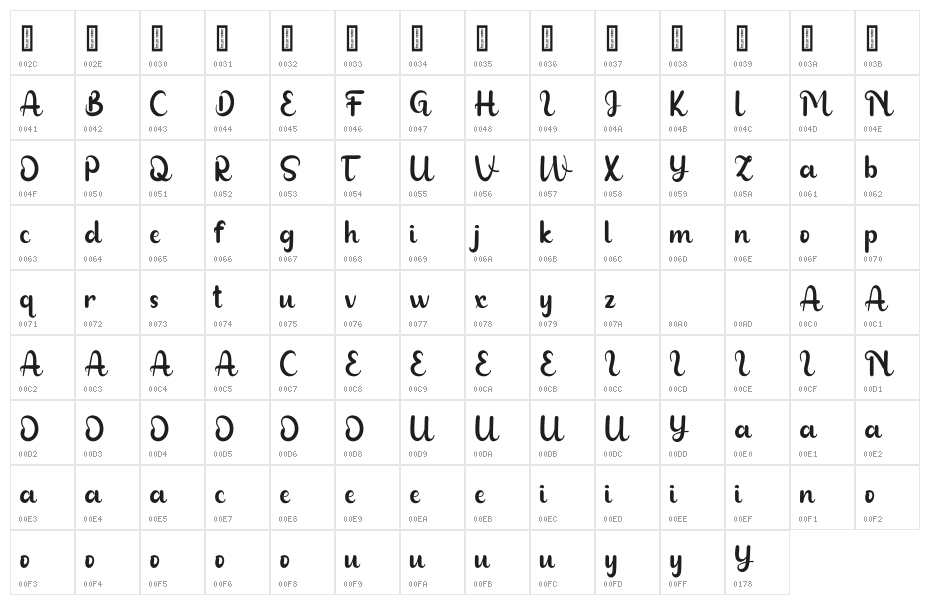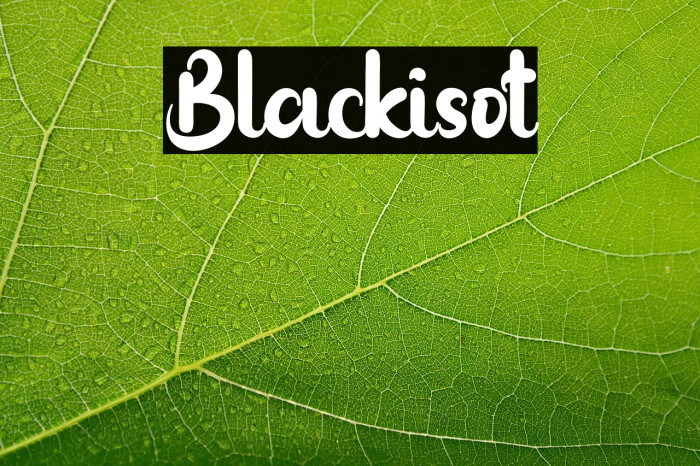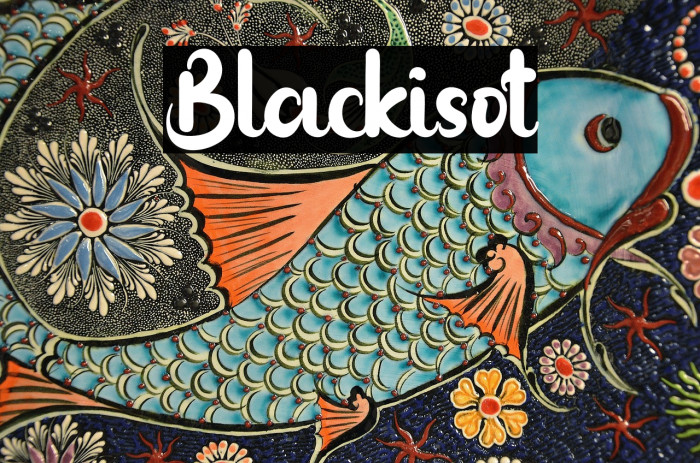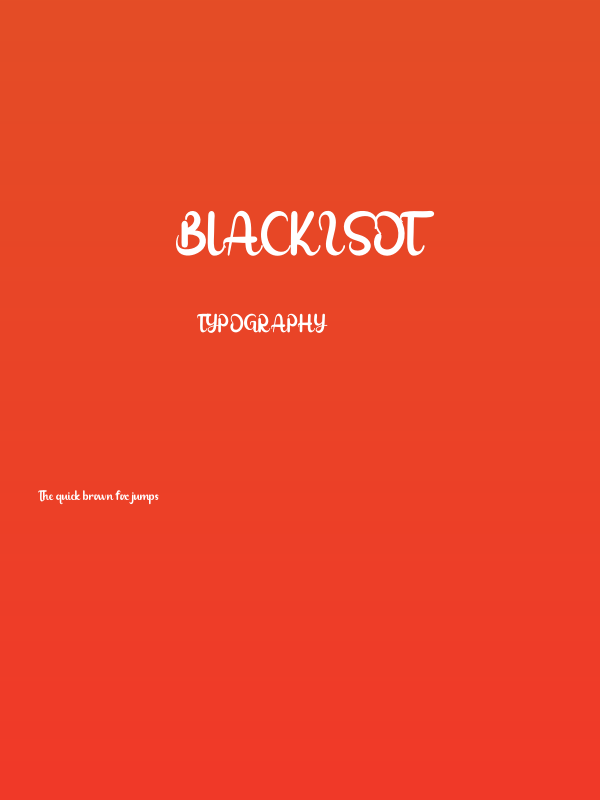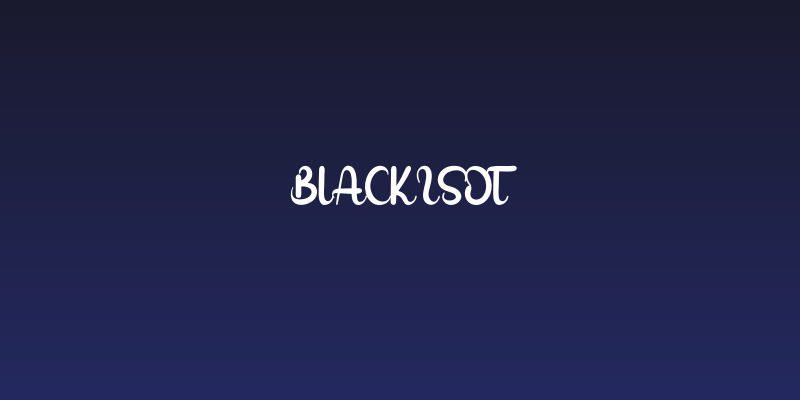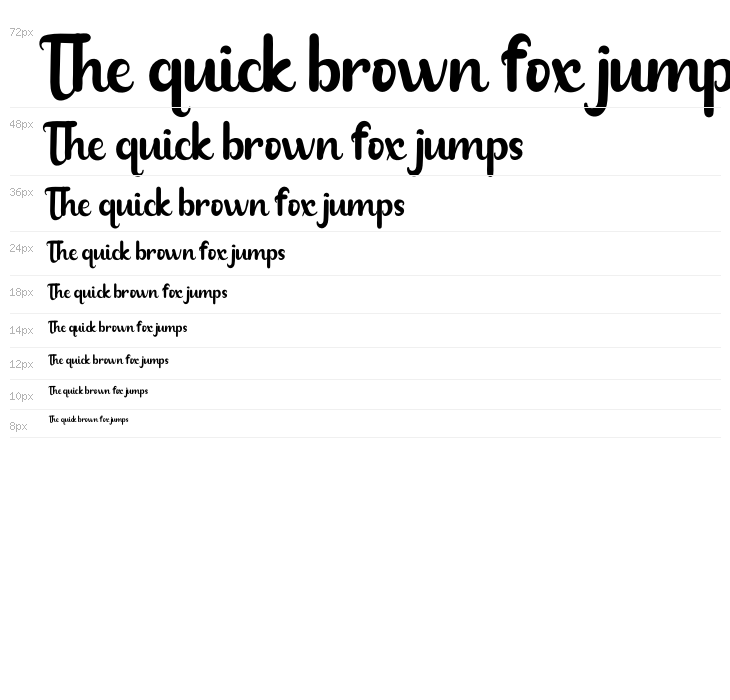
Blackisot Font
Blackisot Description
This font features a bold and playful script style with a handwritten feel. The uppercase letters are characterized by their flowing, cursive design, while the lowercase letters maintain a consistent, rounded appearance. The strokes are thick and uniform, providing a strong visual impact. The font includes a full set of uppercase and lowercase letters, numbers, and a selection of special characters. Its whimsical and friendly nature makes it suitable for creative and informal applications.
| Proposed Projects | Ideal for greeting cards, invitations, playful branding, and children's book covers. |